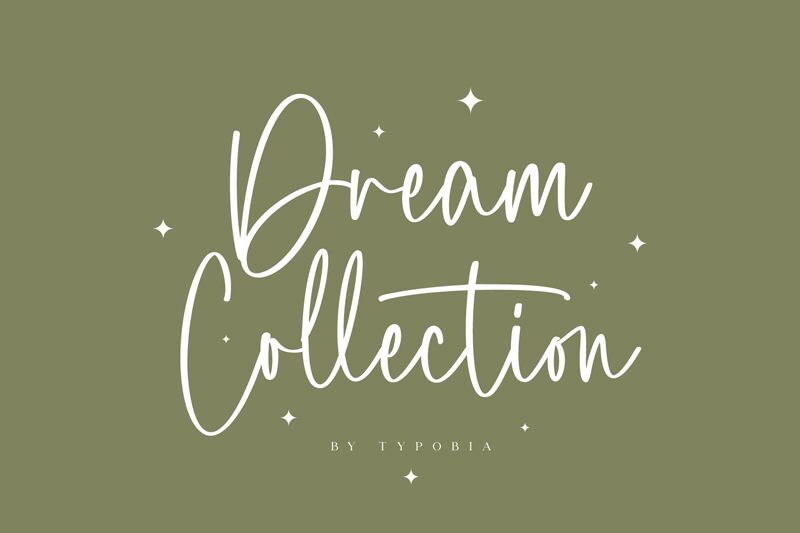
The Dream Collection by Revo Farisky is a light, handwritten signature font that exudes elegance and sophistication. Its fluid strokes and graceful curves make it perfect for wedding invitations, thank-you cards, and other formal correspondence. The Dream Collection's delicate nature also makes it suitable for use in beauty and fashion projects, such as branding for high-end cosmetics or luxury clothing lines. With its unique flair and refined aesthetic, the Dream Collection is truly a dream come true for designers seeking an elevated touch of personalization in their work.
Dream Collection
Designed by Revo Farisky from Typobia in 2021